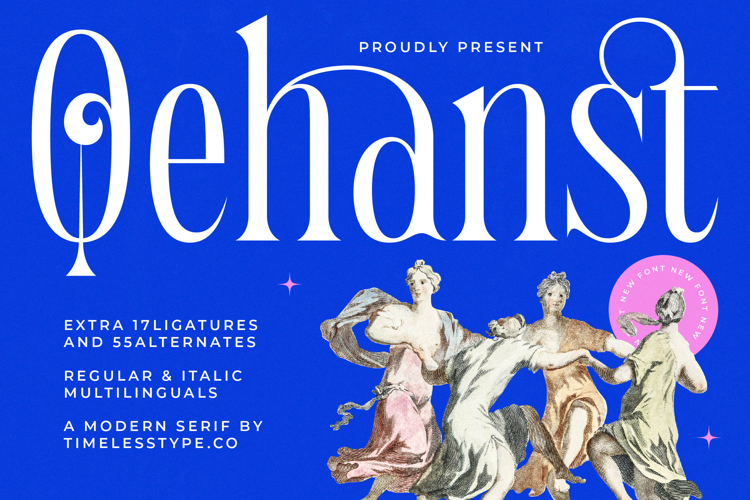
Qehanst - Modern Serif Font
Unleash unparalleled elegance with Font Qehanst - Modern Serif Font Serif Display, a typeface meticulously crafted to make a powerful visual statement. This high-contrast serif masterfully blends traditional sophistication with a refreshing contemporary aesthetic, offering designers an instrument of exquisite elegance. Its distinctive letterforms, characterized by graceful curves and sharp serifs, command attention, imbuing any project with a truly sophisticated appeal and a memorable presence.
Discover the typographic richness embedded within Font Qehanst - Modern Serif Font Serif Display, designed for exceptional creative expression. Featuring an impressive array of extra ligatures and alternates, this font provides boundless opportunities for unique customization, allowing you to craft truly bespoke designs. Available in both Regular & Italic styles, it offers remarkable versatility, ensuring your text maintains its distinctive character whether for bold headlines or refined subheadings.
Expand your design reach globally with the inherent adaptability of Font Qehanst - Modern Serif Font Serif Display. With its extensive multilingual support, Font Qehanst - Modern Serif Font Serif Display adapts seamlessly across global markets, making it incredibly versatile for international projects. This crucial feature ensures your message resonates clearly and beautifully, irrespective of the language, proving its value as a truly global design asset.